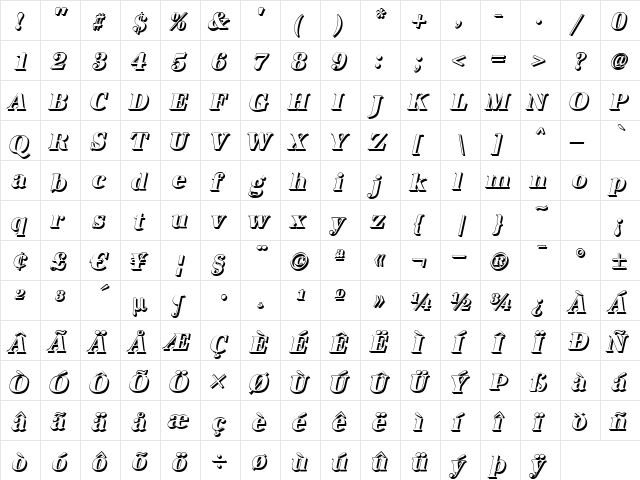
AntiquaSh-Cd-Xbold Italic
Design Context for AntiquaSh-Cd-Xbold Typeface
AntiquaSh-Cd-Xbold takes a measured approach to typography — its balanced proportions and neutral character make it a reliable workhorse for both digital and print work. The dynamic lean of this cut emphasises speed and emphasis in any layout. Its bold stroke weight gives it real presence on the page.
Pro Tip: Use AntiquaSh-Cd-Xbold for emphasis, pull quotes, and subheadings where its slanted energy can add rhythm to the layout.